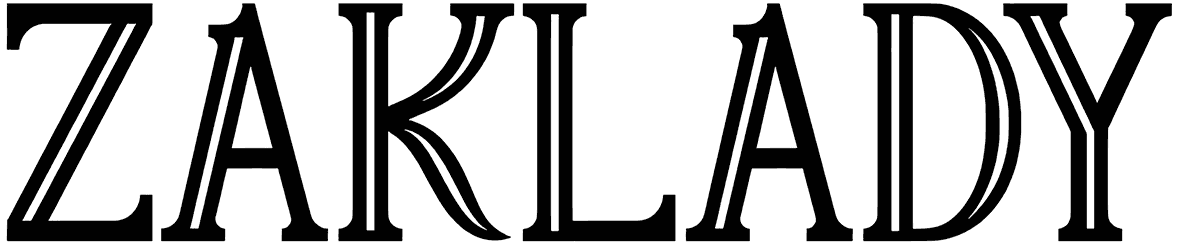
Zaklady Font
Would you like to give a classic and timeless visual to your layout’s words? We offer you to use a retro font like Zaklady. This all-caps font doesn’t cover lowercase, numbers, and punctuation marks, but it has two versions. Zaklady font is a versatile option that can serve you in any design and create a confident mood.